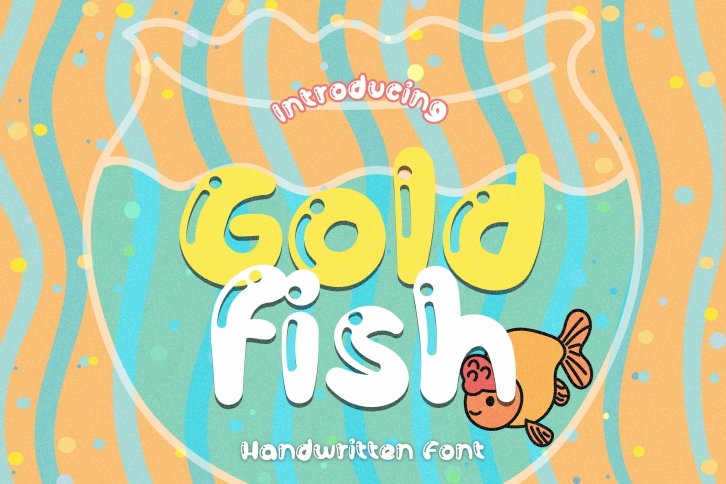
Goldfish - A Cute Glossy Handwritten Font Download
Goldfish is a gorgeous font that was realeased on September 7, 2020. The font can be used in many style contexts and design environments. Perfect for invitations, magazines, websites, logos, and more! It was designed by WADLEN and the file size is 2.85 MB. Thanks for checking out this font!